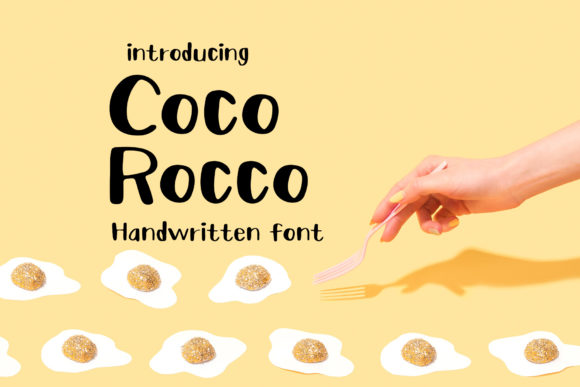
Step into the world of Coco Rocco, a script font that exudes charm and playfulness, making it the perfect choice for play scripts. Crafted by the talented iareCotton Duck, Coco Rocco boasts an incredibly friendly feel, inviting readers into the heart of your storytelling.
With its casual charm, Coco Rocco effortlessly brings characters and narratives to life. Its down-to-earth nature enhances readability, allowing your words to flow smoothly and connect with your audience. Whether you're crafting a whimsical comedy, a heartfelt drama, or an adventurous tale, Coco Rocco provides the perfect backdrop for your creative vision.
Coco Rocco's versatility knows no bounds. Its ability to shine on busy backgrounds and as a captivating headline makes it a true all-rounder. Whether you're designing posters, playbills, or digital content, Coco Rocco seamlessly adapts to your needs. Its versatility extends to a wide range of projects, from invitations and greeting cards to social media posts and website designs.
Unleash the power of Coco Rocco and transport your audience into the realm of your imagination. Its friendly and inviting nature creates an immediate connection, drawing readers into your stories and captivating their attention from the very first page. Let Coco Rocco be your creative companion, guiding you through the world of play scripts and leaving a lasting impression on your readers.